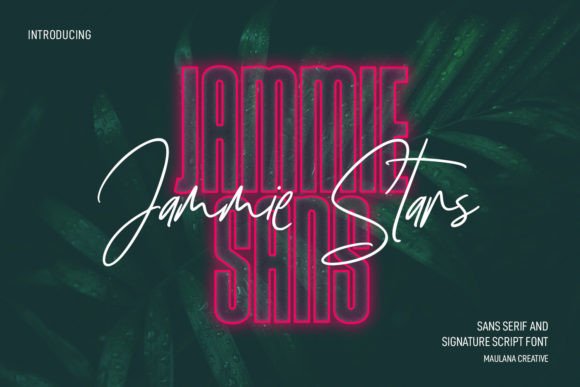
Embark on a Typographic Adventure with Jammie Stars: The Font That Captures the Magic of Childhood
Enter the realm of Jammie Stars, a display font family that ignites the spirit of whimsy and playfulness. With its bold contrast strokes and a cast of fun characters, Jammie Stars is the perfect font for conjuring up enchanting invitations, whimsical social media posts, and captivating movie titles. Its versatility extends to book titles, short and long text letters, and it serves as an exceptional secondary font, harmonizing beautifully with sans serif or serif fonts.
Unleash Your Creativity with Jammie Stars and Jammie Sans: A Dynamic Duo for Design
Jammie Stars and its companion, Jammie Sans, form an expressive font duo that unlocks boundless creative possibilities. Embrace the charm of Jammie Stars for your logo designs, captivating social media posts, or alluring movie titles. Let Jammie Sans effortlessly elevate your book titles, lend a touch of elegance to short or long text letters, and serve as a reliable secondary font, adding a touch of sophistication to your designs.
Immerse Yourself in a World of Creative Possibilities
With Jammie Stars and Jammie Sans at your fingertips, you hold the key to unlocking a world of creative expression. Craft stunning invitations that spark the imagination, captivating social media posts that ignite engagement, and movie titles that leave an unforgettable impression. Design book covers that exude an air of sophistication, compose short texts with a touch of whimsy, or craft long texts with a hint of elegance. Let Jammie Stars and Jammie Sans be your creative companions, guiding you on an artistic journey like no other.